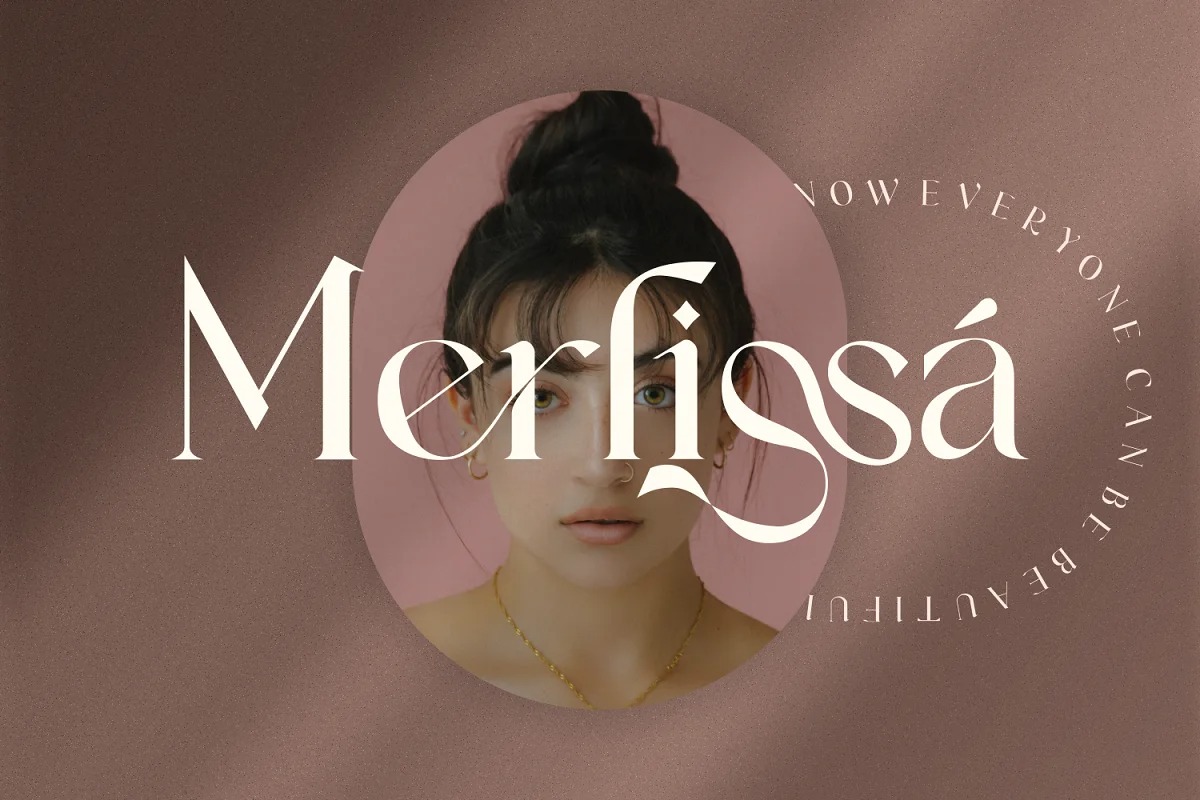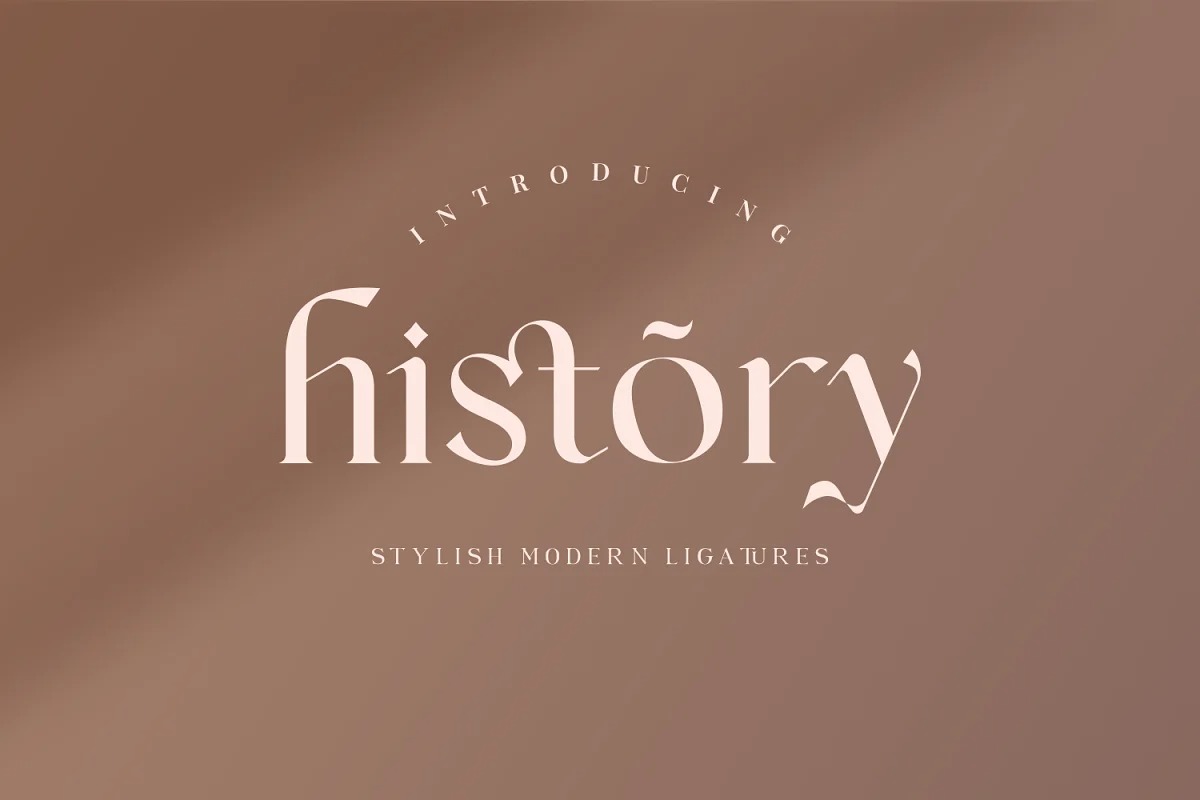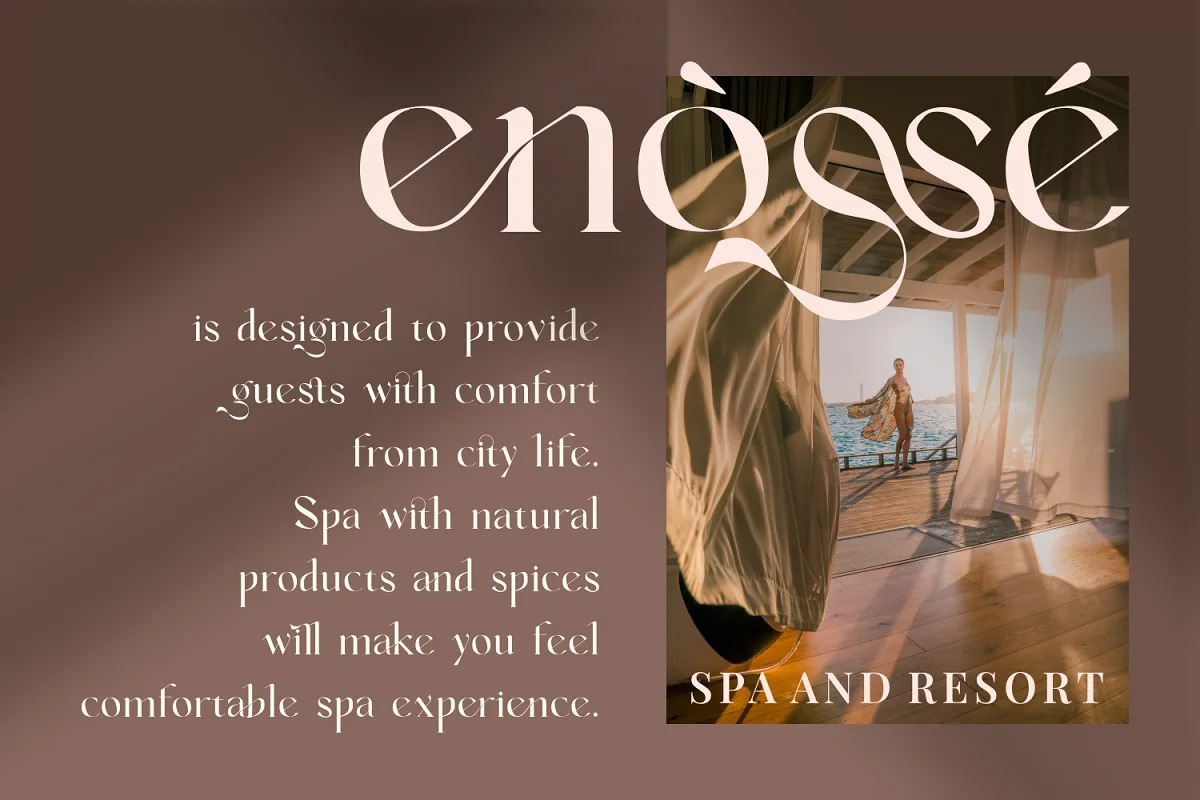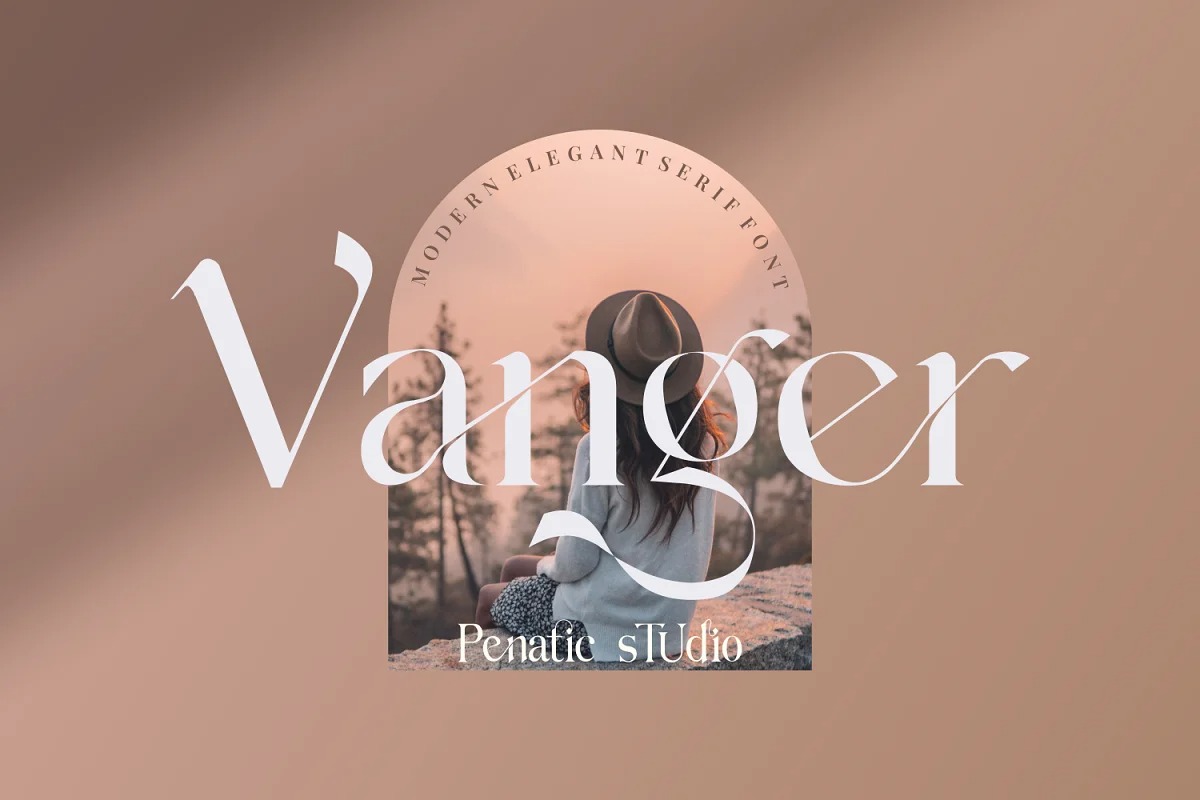
Vanger Serif Font
This is a vintage stylish serif font created by Penatic Studio with a unique alternates and ligatures, a high contrast and light font. Vanger impresses us with both Classical and modern Style by accessing the many alternative fonts in the Opentype Tool.
Vanger is the perfect font for branding projects, logos, magazine imagery, wedding invitations, posters, apparel, packaging, website headers, or simply as a stylish text overlay onto any background image.